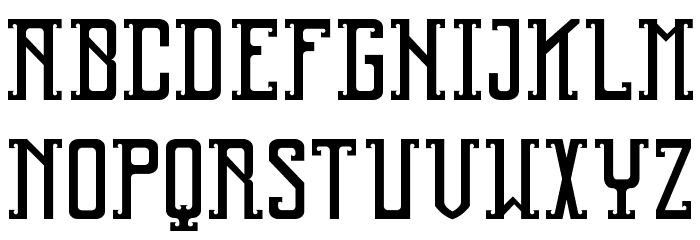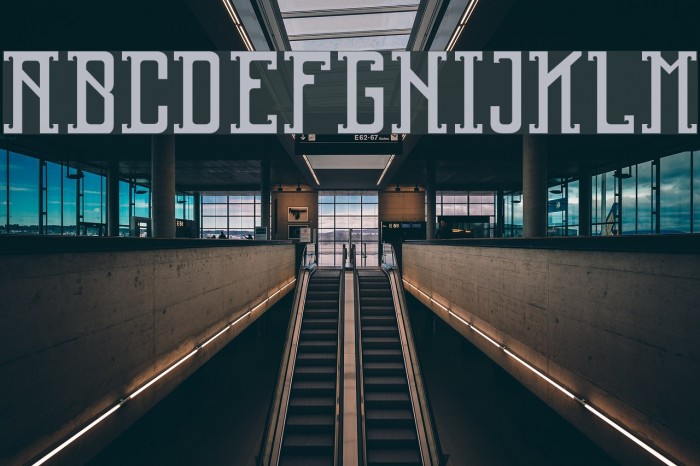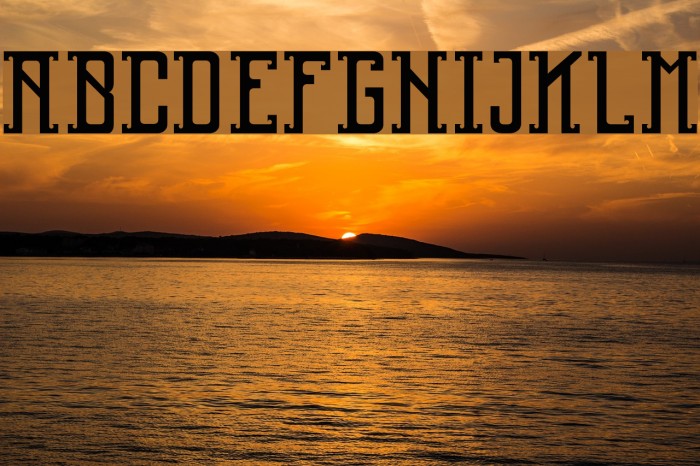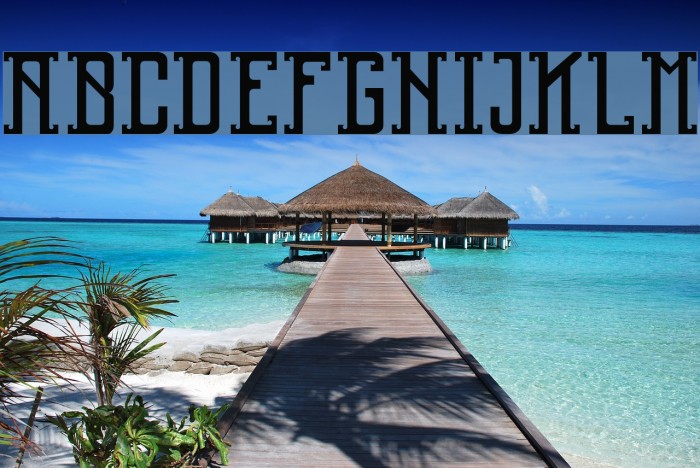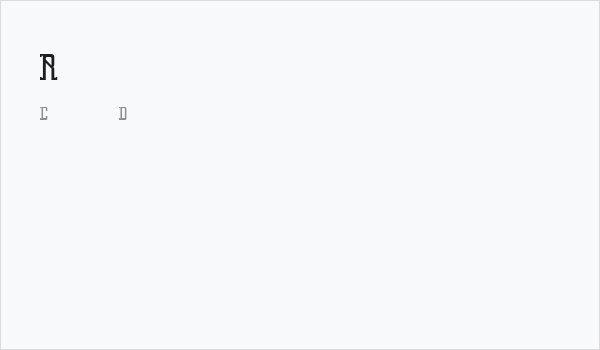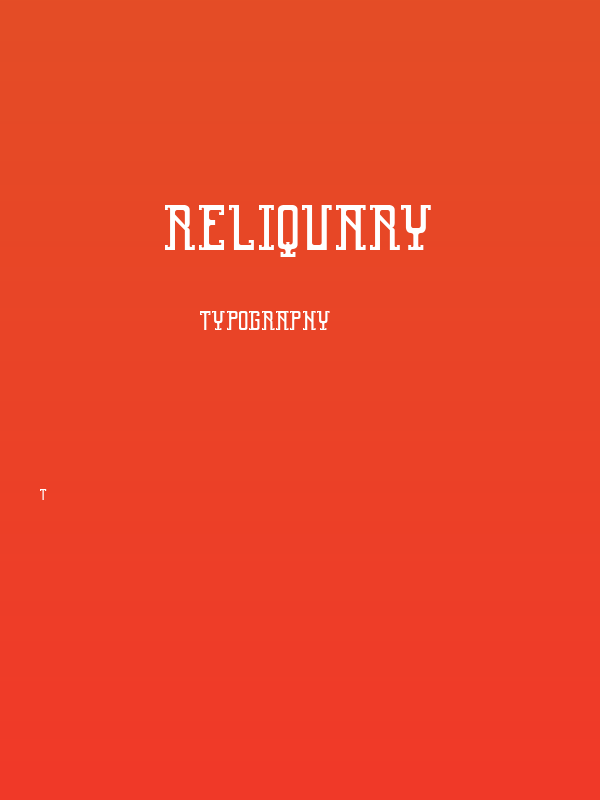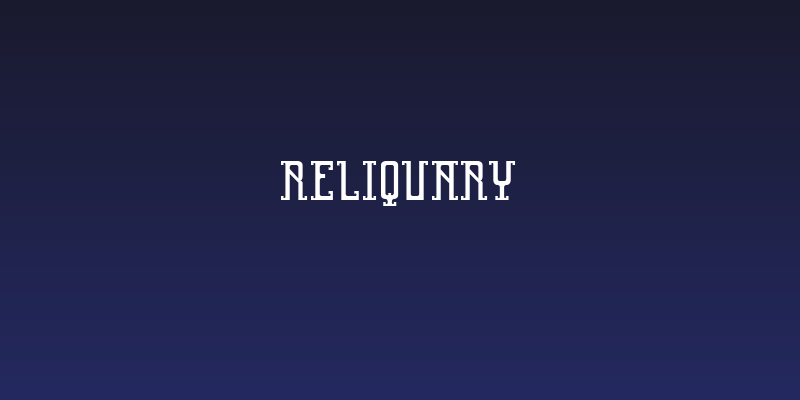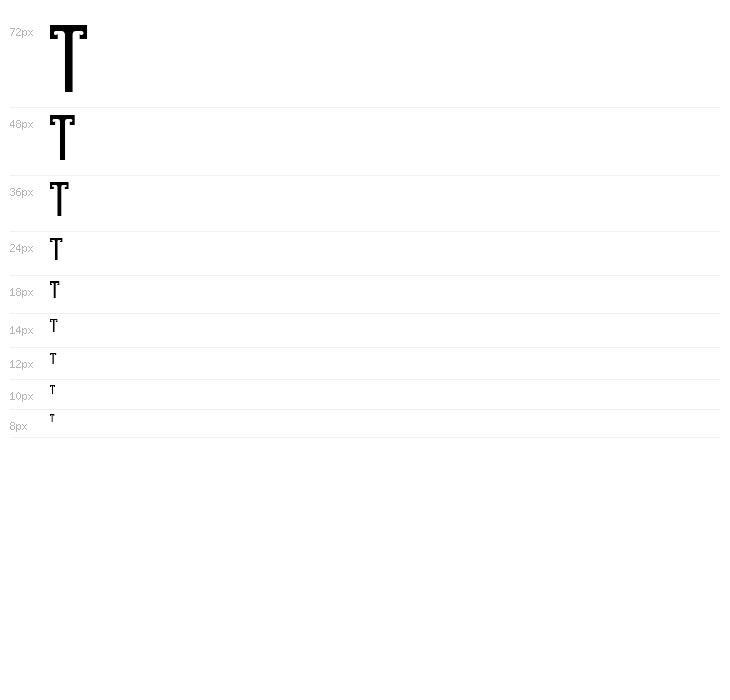
Reliquary Font
Reliquary Description
This font features a bold and striking design with a strong presence. The characters are constructed with a combination of thick vertical lines and thinner horizontal strokes, creating a high contrast that draws attention. The serifs are pronounced and angular, adding a touch of elegance and authority. The overall structure is tall and narrow, giving it a condensed appearance. The unique design elements, such as the pointed serifs and the geometric shapes within the letters, contribute to its distinctive and memorable style. This font is ideal for making a bold statement in any design project.
| Proposed Projects | Ideal for headlines, posters, branding, and any design requiring a strong visual impact. |